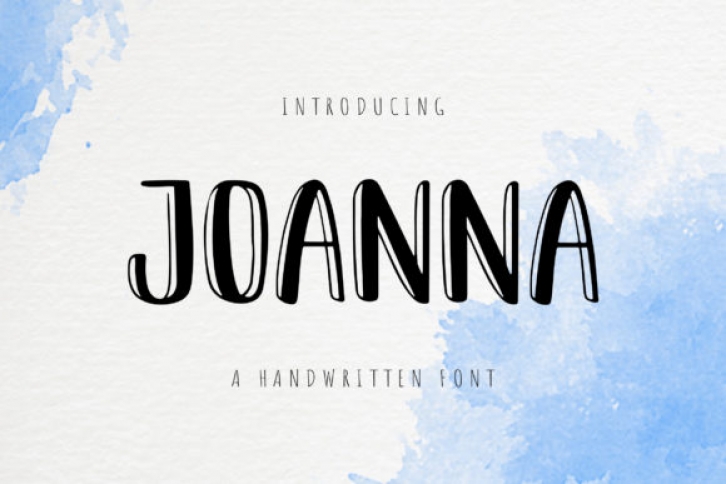
Joanna is a cute, friendly and jolly display font. Whatever the topic, this font will be a wonderful asset to your library, as it has the potential to enhance any creation.